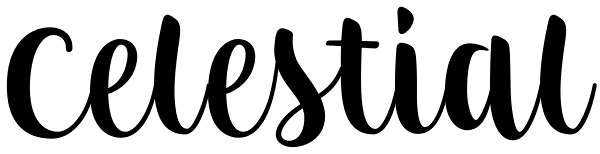
Celestial
Have you ever struggled while creating a quote with all ascenders/descenders getting on the way? When you can't find a perfect placement for a word because the letters on the upper line crossing the ones on the lower one? Well, I have :) If you want...